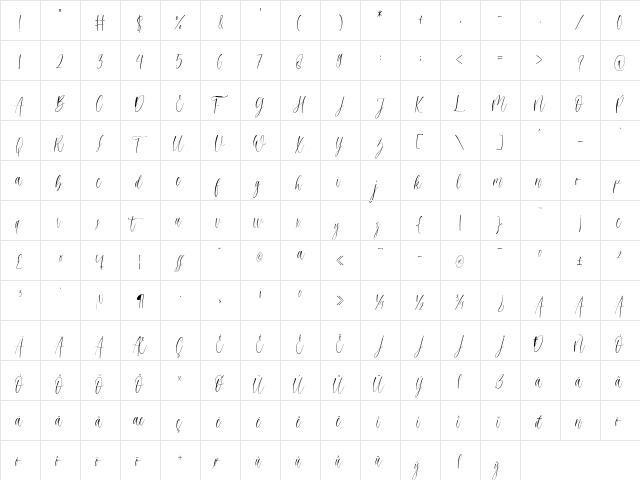
higheals Regular Font Preview
higheals Regular
higheals Regular Font Details
| Designer | Muhamad Fikry Nuralif |
Design Context for higheals Typeface
higheals is a composed and adaptable typeface that performs quietly and consistently across a wide range of design contexts.